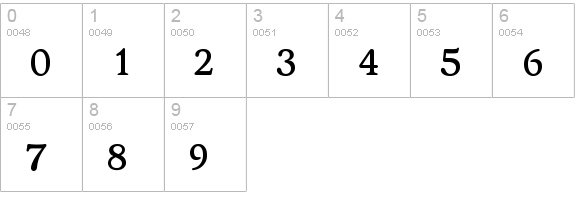
Seneca Medium Font Details
Seneca Medium is a balanced, medium-weight variant in the Seneca typeface family \xE2\x80\x94 well suited to sub-headlines, navigation, and balanced editorial work.
Introducing Seneca Medium, a beautifully crafted font that effortlessly combines elegance and modernity. Designed with meticulous attention to detail, this font exudes a sense of sophistication that captivates the eye and elevates any design project. With its clean lines and balanced proportions, Seneca Medium offers a versatile typographic solution for a wide range of applications. Whether it's creating stunning logos, designing captivating headlines, or crafting compelling body text, this font delivers a timeless aesthetic that never fails to impress. What sets Seneca Medium apart is not only its impeccable design, but also its accessibility. We are proud to offer this remarkable font for free, making it available to designers, enthusiasts, and anyone who appreciates the power of typography. To access Seneca Medium, simply visit FontsMarket.com, where you can effortlessly download this font and enhance your creative endeavors. Experience the seamless integration of beauty and functionality with Seneca Medium, a font that surpasses expectations and empowers your designs to leave a lasting impression.